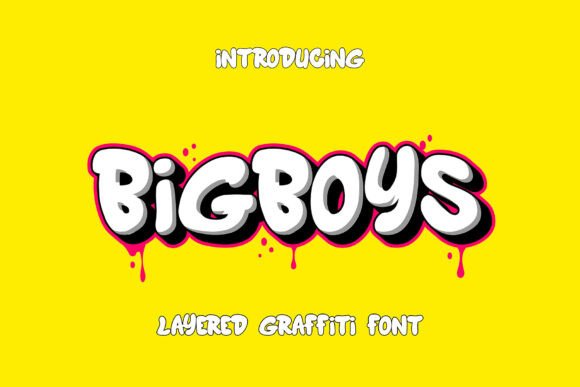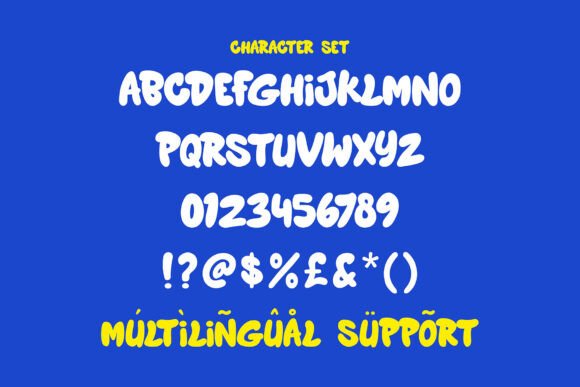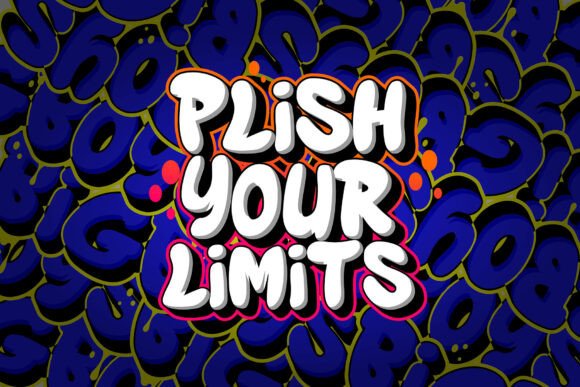
Bigboys Font
Immerse yourself in the dynamic, vibrant world of street art with Bigboys, a 3D graffiti font that’s unapologetically bold and chunky. Esteemed for its distinctive trifecta of layers – solid, inner shadow, and extrude – Bigboys has the exceptional ability to imbue depth and dimension into any design. Its perfect incorporation into urban aesthetics, hip-hop posters, trendsetting streetwear logos, music album art or any other graffiti-infused endeavor is simply seamless. Boasting robust, rounded letters, layered with unique effects, Bigboys emits surges of energy and characteristic flair into a design. Irrespective of your vision – whether it’s jovial, audacious, rebellious or anything in between, this audacious font punctuates any text with a bold, street-art expression that simply refuses to blend into the background.